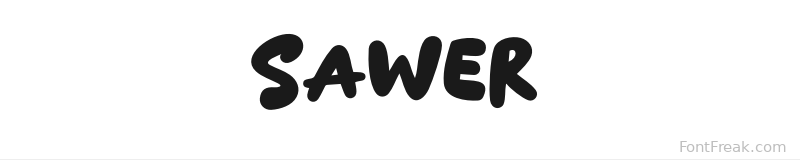
Sawer
The Sawer font, created by Syaf Rizal, is an engaging display typeface that captures attention with its unique and contemporary design. This freeware font combines elements of both modern and playful aesthetics, making it an excellent choice for a range of creative projects. The font features a bold stroke weight with a slight contrast, providing a strong visual presence while maintaining legibility. Its spacious character spacing ensures clarity, making it stand out in various applications. The decorative elements of the Sawer font add a whimsical touch, enhancing its overall appeal.
Sawer is particularly suited for use in wedding invitations, where its stylish flair can lend an air of sophistication. It also shines in movie posters, drawing viewers in with its bold yet charming character. Restaurant menus can benefit from the font's inviting look, helping to create a warm atmosphere that entices diners. Additionally, it can be effectively used in branding for small businesses, allowing them to convey a unique personality that resonates with their target audience. Content creators will find it useful for creating eye-catching social media graphics that demand attention.
The primary audience for the Sawer font includes graphic designers, small business owners, and content creators who are looking for a versatile typeface that stands out in a crowded market. The Sawer font free download option makes it accessible for all creative professionals eager to enhance their design toolkit.
What truly sets the Sawer font apart is its ability to balance playfulness with professionalism, making it a perfect fit for diverse projects. Its distinctive style and versatility ensure that it can elevate any design, making it a must-have for anyone looking to make a lasting impression.